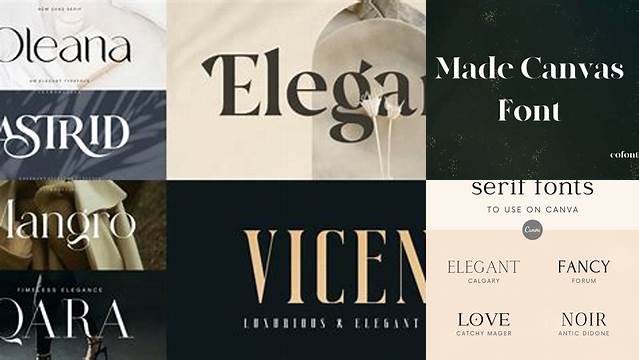
Canvas Font: Modern & Elegant Free Download
Hey guys! Are you on the hunt for that perfect font to elevate your designs? Look no further! We're diving deep into the world of canvas fonts, exploring what makes them so modern and elegant, and how you can snag them for free. Whether you're a seasoned designer or just starting out, choosing the right font can make all the difference. So, let's get started and explore the amazing world of canvas fonts!
1. What is Canvas Font?
So, what exactly is a canvas font? Well, the term “canvas font” often refers to fonts that evoke a sense of texture, artistry, and a handcrafted feel, much like a painting on a canvas. These fonts are designed to add a touch of sophistication and personality to your projects. They can range from clean and minimalist to bold and expressive, but they all share that underlying sense of artistic flair. Think about the kind of impact you want to make. Do you want your design to whisper elegance or shout creativity? Understanding the nuances of different canvas fonts will help you make the right choice.
When we talk about canvas fonts, we’re not just talking about one specific style. It’s more of a category that encompasses a wide range of looks and feels. You might find sans-serif fonts with subtle textures that give them a hand-drawn quality, or elegant serif fonts with graceful curves and unique details. The key is that they all bring a certain depth and character to the typography. Imagine a wedding invitation – a delicate, textured canvas font can add a touch of romance and sophistication. Or think about a branding project for a creative agency – a bold, expressive canvas font can convey a sense of innovation and artistic vision. It's all about matching the font to the message and the overall aesthetic you're trying to achieve.
The beauty of canvas fonts lies in their versatility. They can be used for a variety of projects, from web design and branding to print materials and social media graphics. The slight imperfections and unique details in these fonts make them stand out from the more generic, clean fonts that you see everywhere. They add a human touch to your designs, making them feel more authentic and engaging. When you’re choosing a canvas font, consider the overall tone and style of your project. Is it formal or informal? Modern or vintage? Playful or serious? The right font will enhance your message and help you connect with your audience. And remember, a strong font choice can be the difference between a good design and a great design. So, take your time, explore your options, and find the canvas font that truly speaks to you.
2. Modern Characteristics of Canvas Fonts
What makes a canvas font modern? That's a great question! Modern canvas fonts often blend the timeless elegance of traditional typography with contemporary design principles. This means you might see clean lines, geometric shapes, and a focus on readability, all while maintaining that textured, artistic feel. Think of it as a bridge between the classic and the cutting-edge. These fonts are designed to be versatile, working well in both digital and print contexts. Modernity in canvas fonts is all about adaptability and striking a balance between the old and the new. So, when you’re looking for a modern canvas font, think about fonts that feel fresh and current but still have that touch of personality that sets them apart.
One of the key characteristics of modern canvas fonts is their ability to convey a sense of sophistication without feeling stuffy or outdated. They often feature subtle details that add visual interest, such as slightly irregular strokes, textured surfaces, or unique letterforms. These details give the fonts a handcrafted feel, even though they are designed using modern digital tools. This blend of handmade and digital creates a unique aesthetic that is both contemporary and timeless. For instance, a modern canvas font might have a slight texture that mimics the feel of paint on canvas, or subtle variations in stroke weight that give it a more organic appearance. These small touches can make a big difference in the overall look and feel of your design.
Another important aspect of modern canvas fonts is their emphasis on readability. While artistic flair is important, a modern font should also be easy to read, especially in longer texts. This means that the letterforms should be clear and well-defined, with adequate spacing between letters and words. Modern canvas fonts often strike a balance between decorative elements and functional design, ensuring that your message is both beautiful and legible. When you’re choosing a font for a website or a printed document, readability should always be a top priority. A gorgeous font is useless if people can't easily read what you've written! So, look for modern canvas fonts that offer a good balance of style and functionality. In conclusion, modern canvas fonts are the perfect blend of art and technology, offering a unique way to elevate your designs and make a lasting impression.
3. Elegant Traits in Canvas Fonts
When we talk about elegance in fonts, we're often referring to a sense of grace, sophistication, and timeless beauty. Elegant canvas fonts typically feature flowing lines, delicate serifs (the little feet at the ends of the letters), and a refined overall aesthetic. They evoke a feeling of luxury and class, making them perfect for projects that need a touch of sophistication. Think about wedding invitations, high-end branding, or editorial designs – these are all areas where elegant canvas fonts can really shine. Elegance in font design is about creating a visual experience that is both pleasing and impactful. So, what are the specific traits that make a canvas font elegant?
One of the key traits of elegant canvas fonts is their attention to detail. These fonts often feature meticulously crafted letterforms with subtle curves and refined proportions. The serifs, in particular, play a crucial role in conveying elegance. They can be delicate and tapered, adding a touch of sophistication, or they can be more pronounced, creating a sense of formality and tradition. The overall weight and contrast of the font also contribute to its elegance. Thinner strokes and higher contrast between thick and thin lines tend to create a more refined and graceful appearance. Imagine the difference between a bold, chunky font and a delicate, flowing script – the script immediately feels more elegant.
Another important aspect of elegant canvas fonts is their ability to convey a sense of timelessness. These fonts often draw inspiration from classic typography, but they also incorporate modern elements to keep them fresh and relevant. This combination of classic and contemporary design creates a look that is both familiar and unique. Elegant fonts are designed to stand the test of time, so they should be versatile enough to work well in a variety of contexts. Whether you're designing a logo, a website, or a printed brochure, an elegant canvas font can add a touch of sophistication and class. Remember, the key to elegance is subtlety – it's about creating a visual experience that is refined and understated, rather than flashy or over-the-top. An elegant canvas font can truly transform your designs, adding a touch of class and sophistication that will captivate your audience.
6. Canvas Font Styles: Serif vs. Sans-serif
When you're exploring canvas fonts, you'll quickly encounter two main categories: serif and sans-serif. Serif fonts have those little